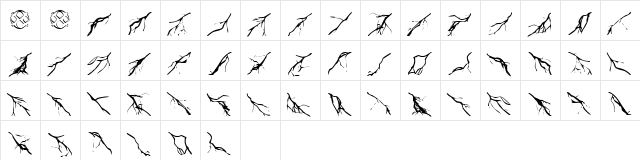
Lightning Bolts Normal
Design Context for Lightning Bolts Typeface
Lightning Bolts is a composed and adaptable typeface that performs quietly and consistently across a wide range of design contexts. Its slender proportions lend an understated elegance to any composition.